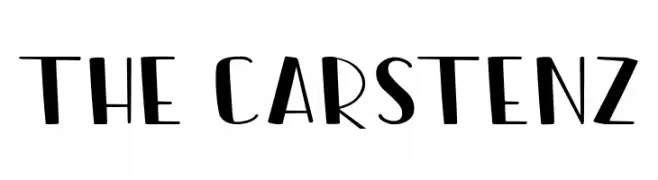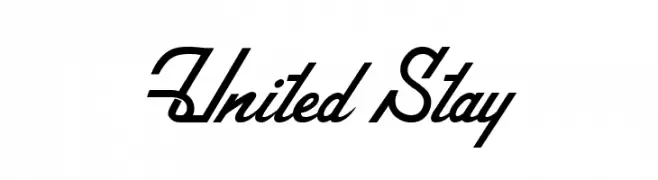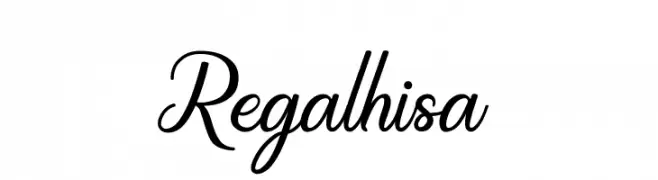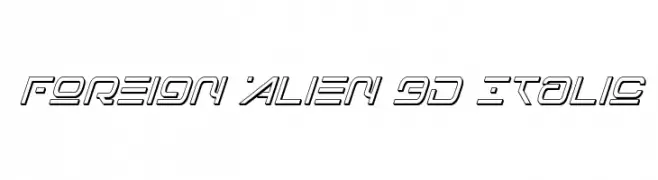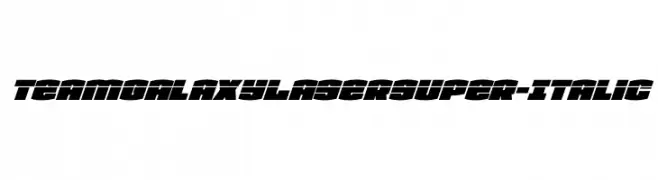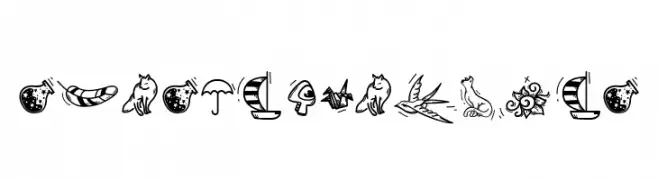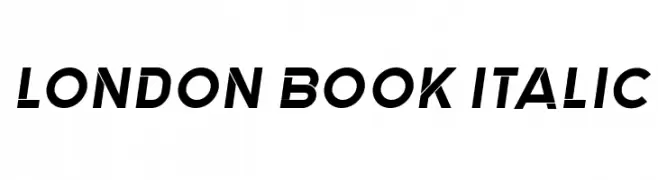
A playful, modern font with geometric and hand-drawn elements.
A cursive, flowing font with elegant loops and swashes.
An elegant, flowing script font with graceful curves and loops.
An elegant, cursive font with flowing, handwritten style and ornate flourishes.
A decorative font featuring political party symbols for thematic use.
A bold, angular font with a modern and dynamic style.
A futuristic, 3D italic font with a geometric and tech-inspired design.
A bold, futuristic font with angular shapes and dynamic slants, ideal for striking headlines.
A whimsical dingbat font with playful, hand-drawn symbols.
A bold, geometric italic font with a modern and dynamic style.